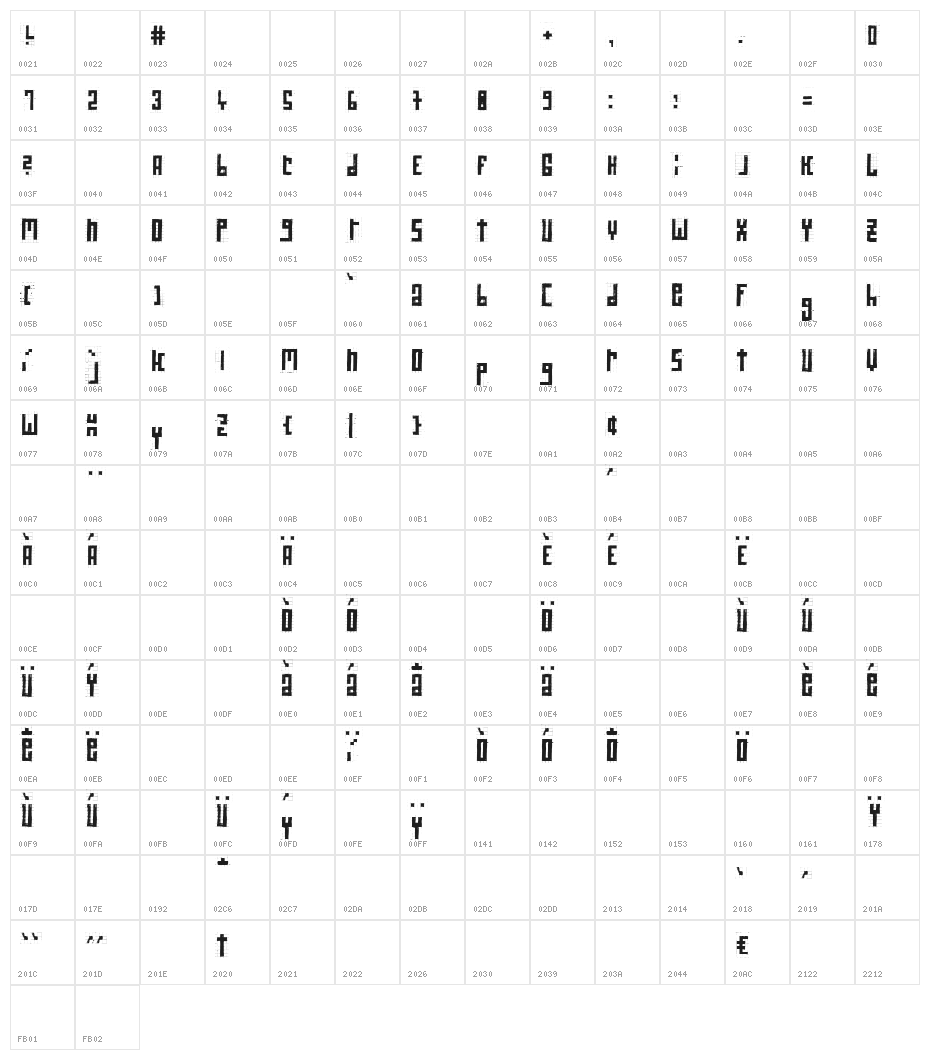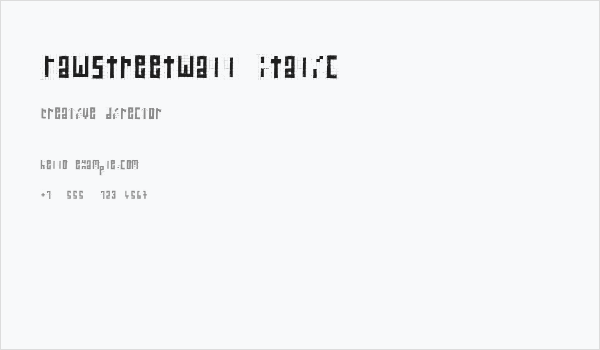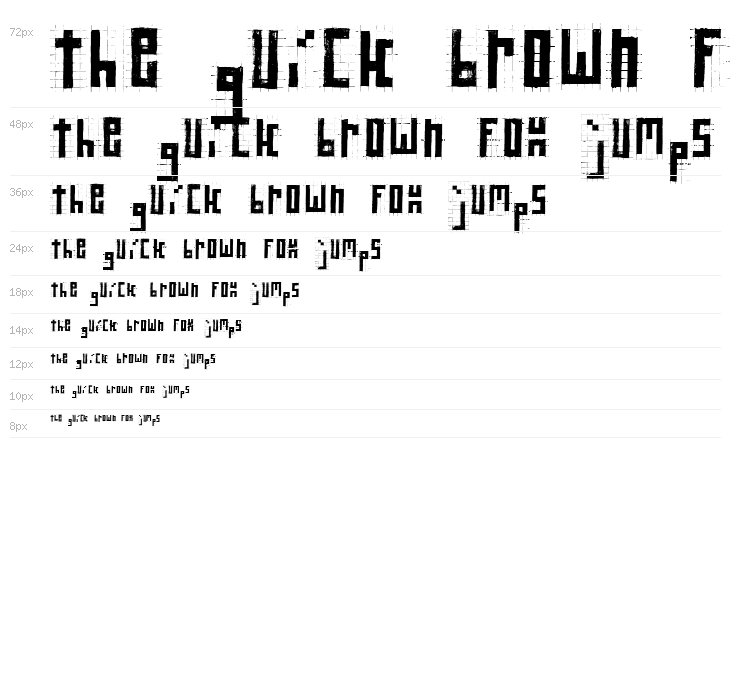
RawStreetWall Italic Font
RawStreetWall Italic Description
This font features a bold, graffiti-inspired style with a distinctly urban aesthetic. The characters are blocky and angular, reminiscent of street art and stencil designs. Each letter is constructed with thick, consistent strokes, giving it a strong presence. The uppercase and lowercase letters maintain a uniform height, contributing to a cohesive and structured appearance. The numbers and special characters follow the same stylistic approach, ensuring visual harmony across all elements. The font's edgy and modern look makes it ideal for projects that require a bold statement.
| Proposed Projects | Ideal for street art designs, urban-themed posters, edgy branding, and music album covers. |